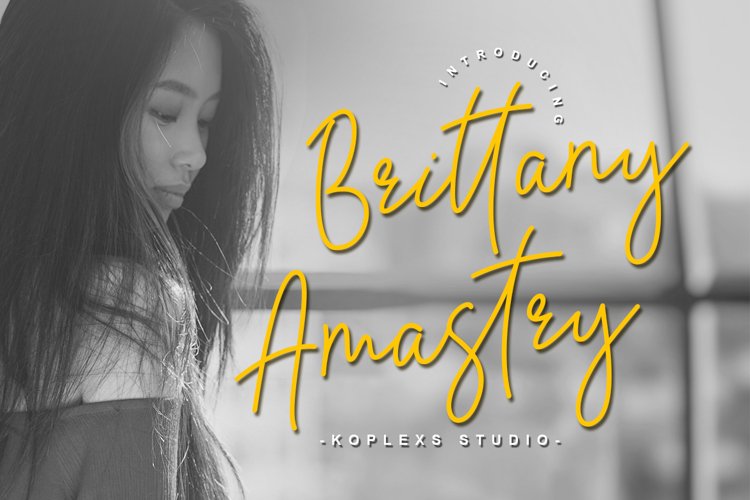
Brittany Amastry - Natural & Modern Handwritten Font
Brittany Amastry - Handwritten font is a natural & modern handwritten font. It's perfect for logos, invitations, stationery, wedding designs, social media posts, advertisements, product packaging, product designs, labels, photography, watermarks, special events, or whatever. These fonts include: Sallytta OTF-TTF, Ligatures, and alternates
Great for branding, logotypes, hand lettering, invitations, or fashion branding.